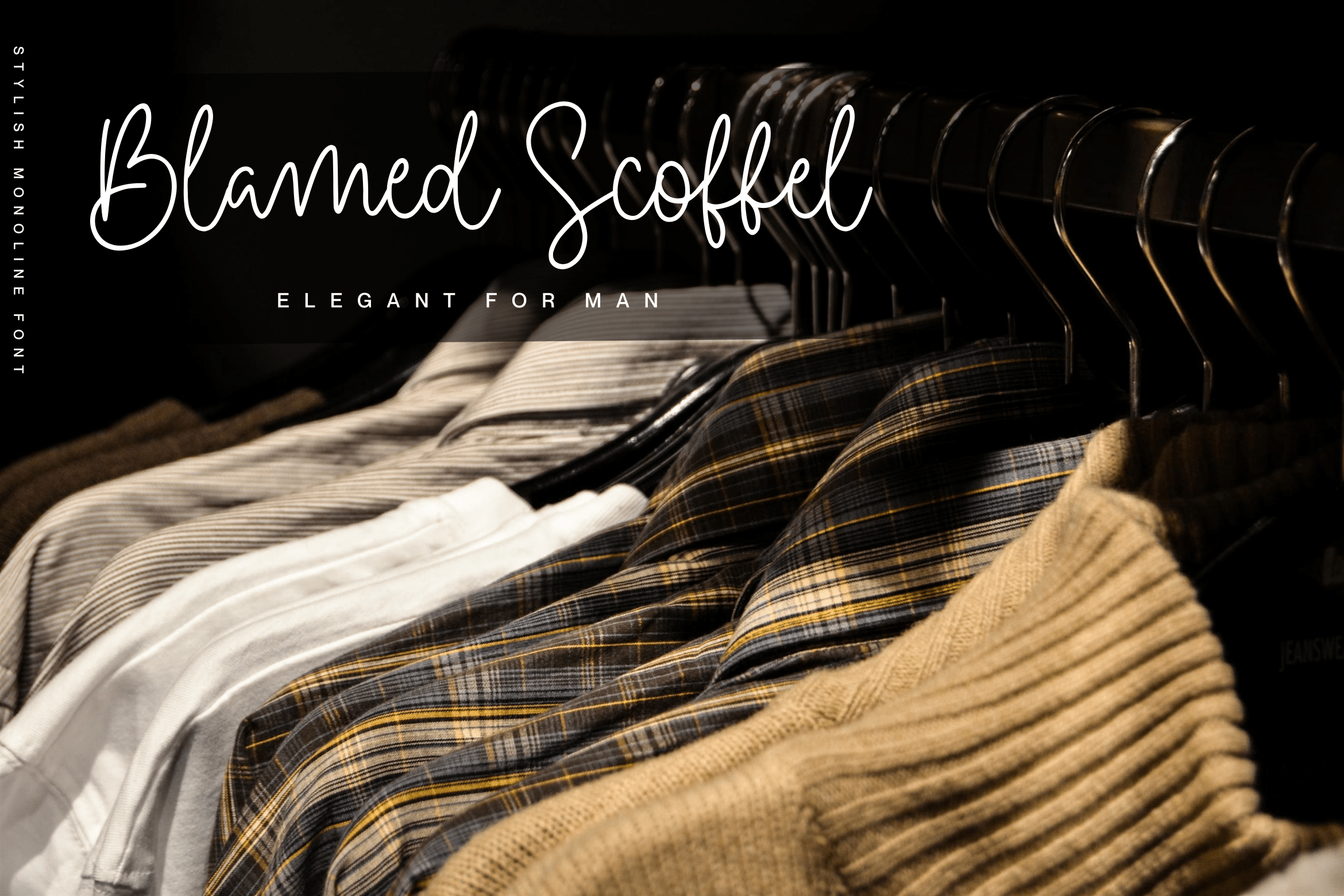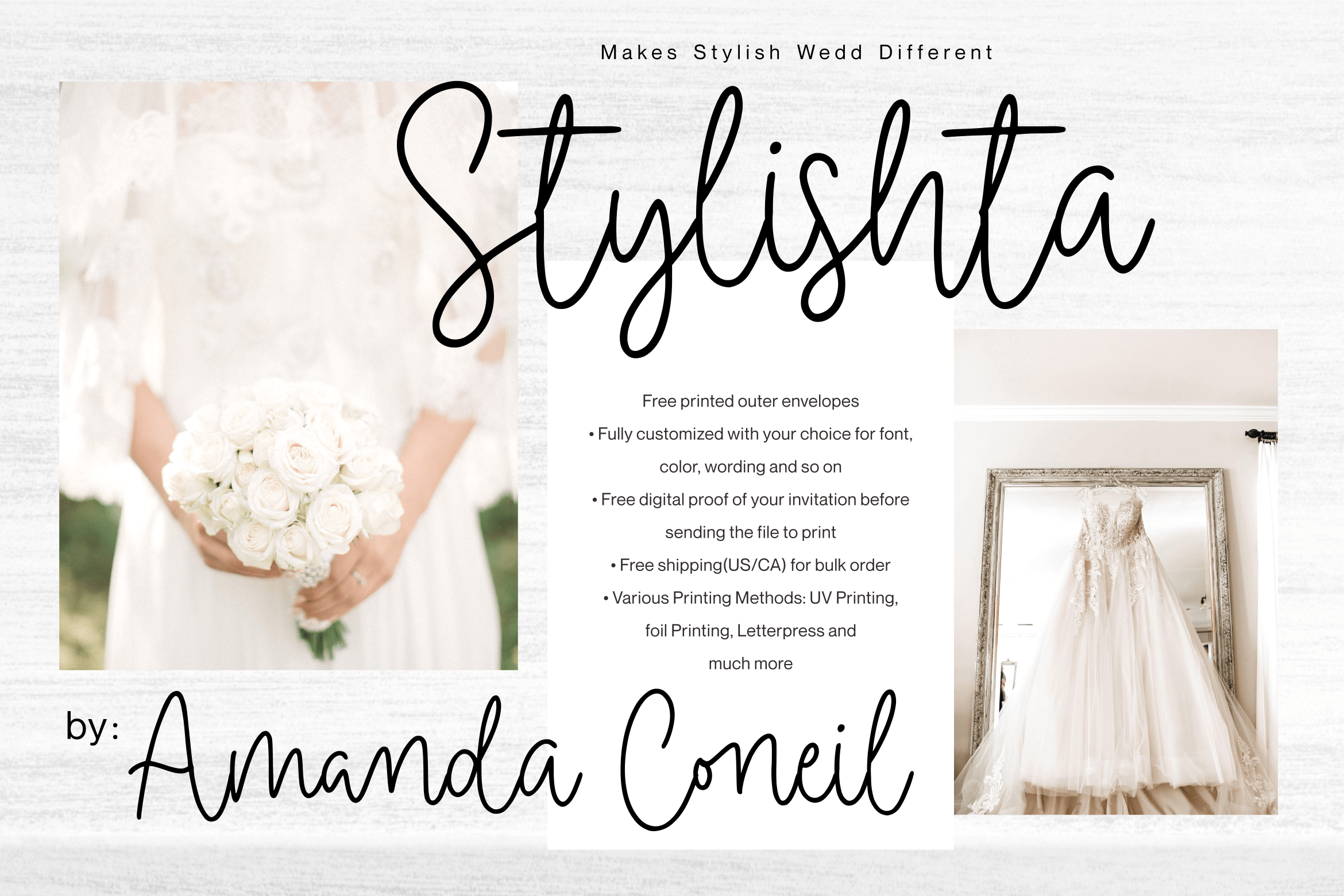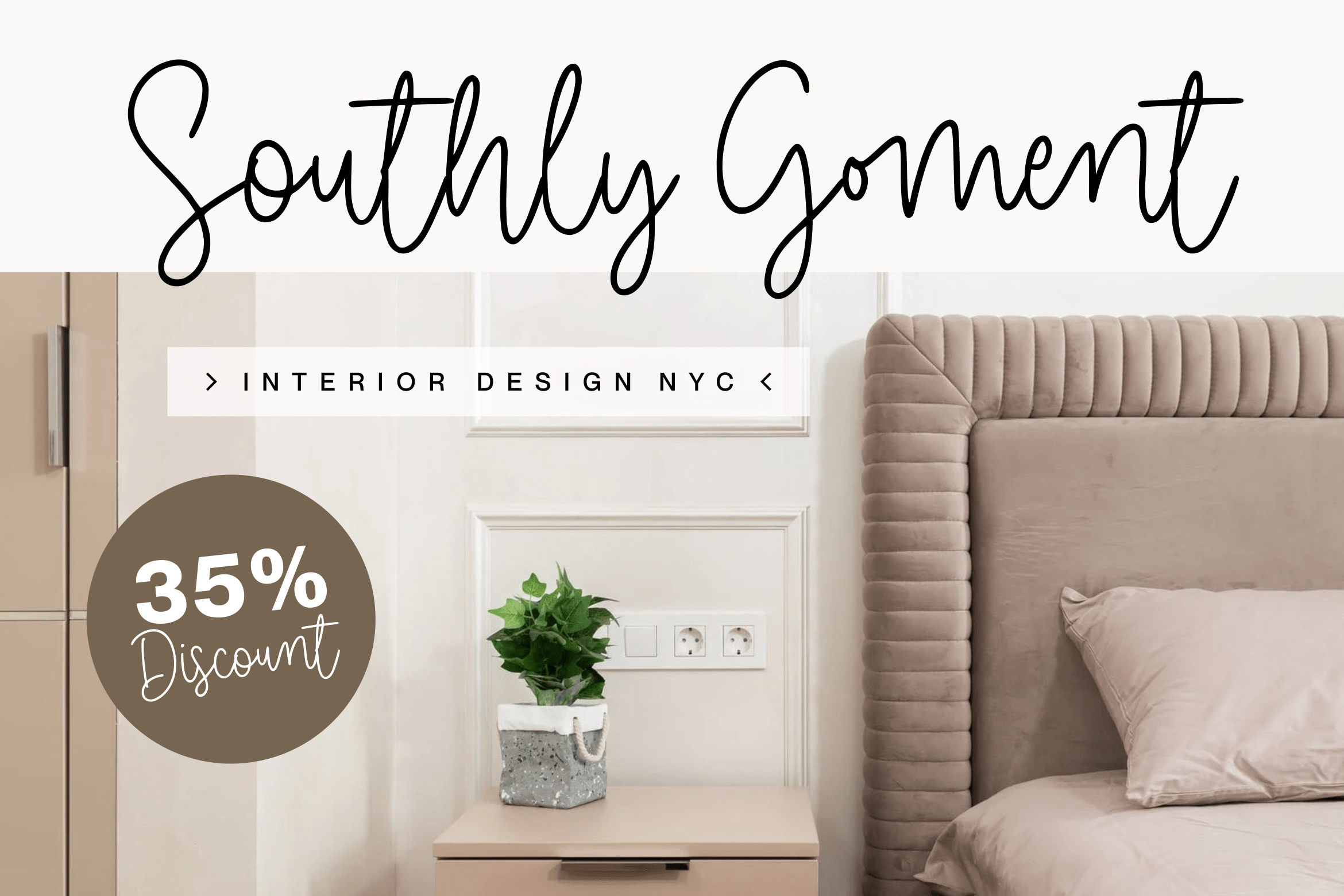
Clothingline Font
Clothingline Handwritten Font
It’s a stylish script font that will impress with its authentic look and feel! Use it for letters, invitations, branding, birthday cards, thank you notes, wedding invitations, and other projects that need a personal touch!